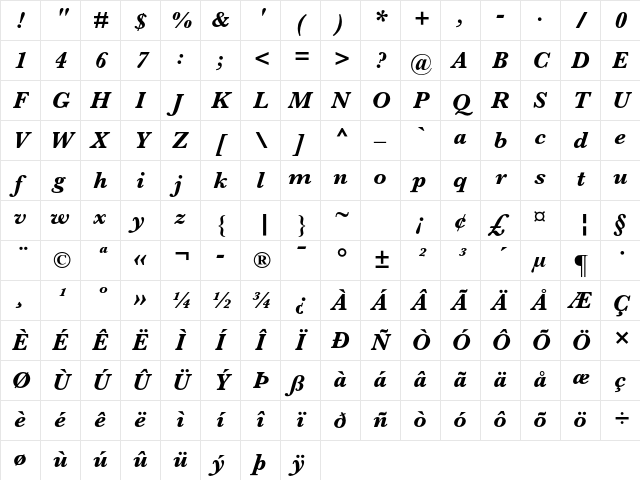
Baskerville MT Std Bold Italic
Design Context for Baskerville MT Std
Baskerville MT Std is a composed and adaptable typeface that performs quietly and consistently across a wide range of design contexts. The slanted form adds forward momentum and visual energy. Its bold stroke weight gives it real presence on the page.